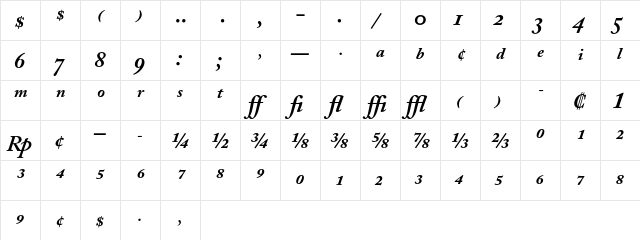
Adobe Caslon Bold Italic Expert
Design Context for Adobe Caslon Typeface
Adobe Caslon is a composed and adaptable typeface that performs quietly and consistently across a wide range of design contexts. The slanted form adds forward momentum and visual energy. Its bold stroke weight gives it real presence on the page.
Pro Tip: Try Adobe Caslon for annotation and caption copy alongside an upright companion — the contrast in angle creates a dynamic but ordered typographic system.